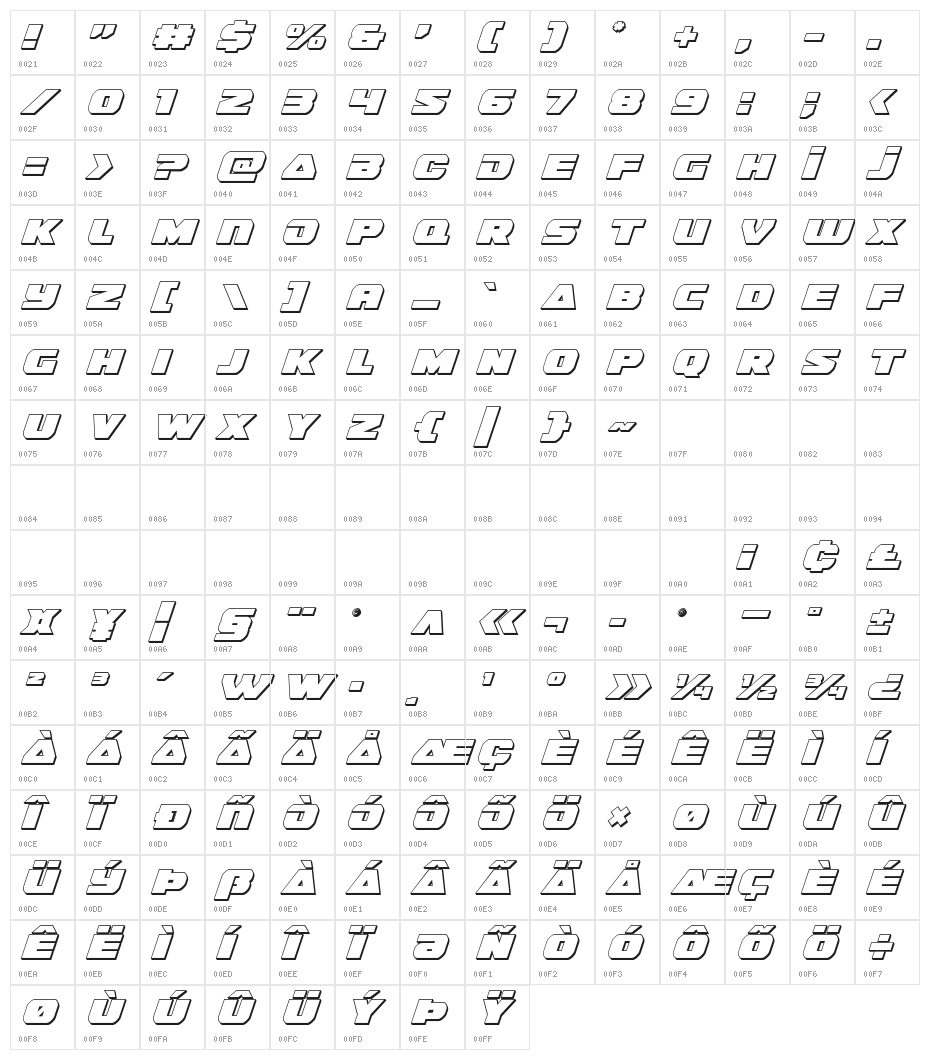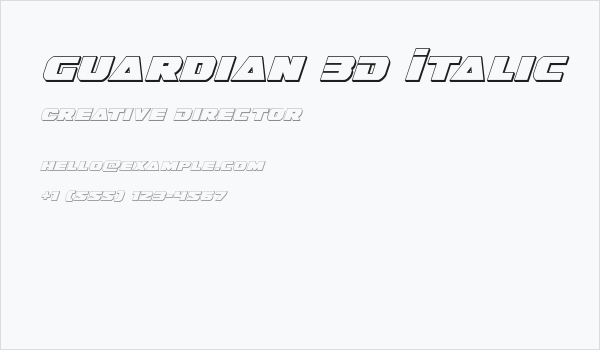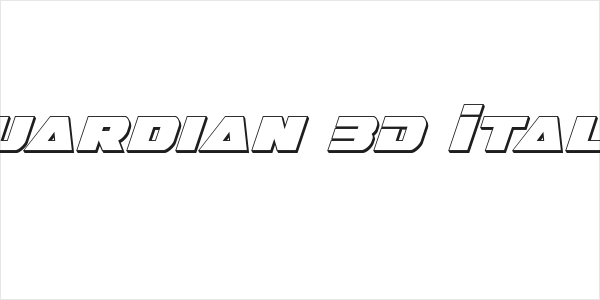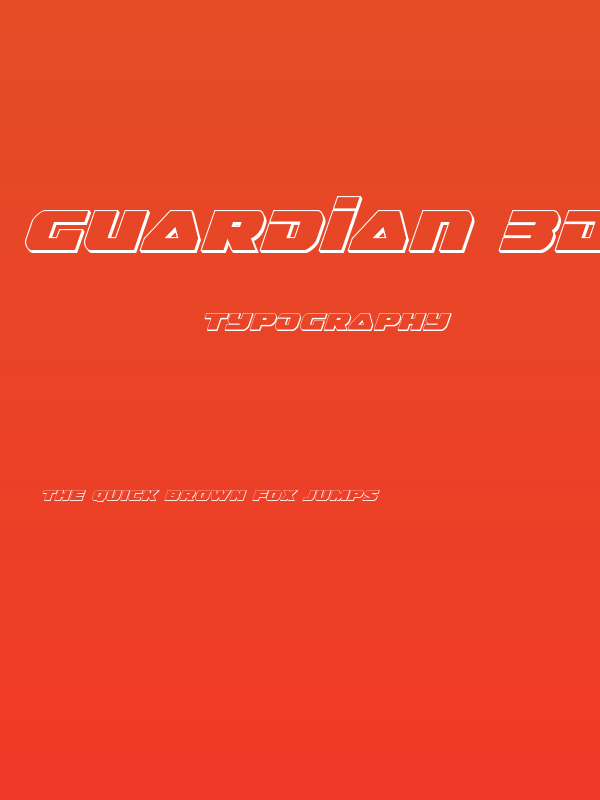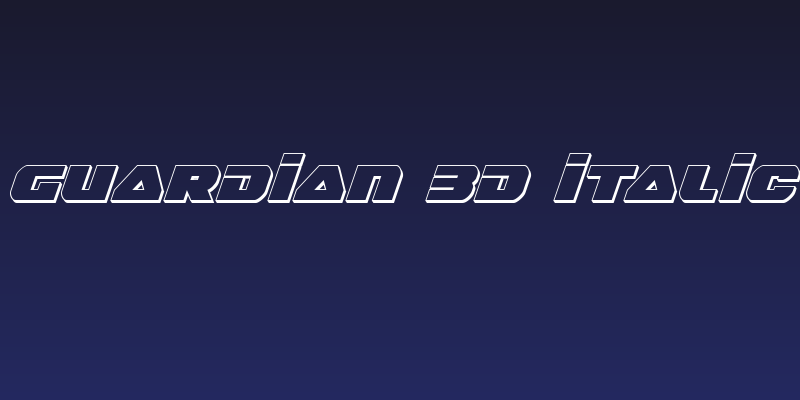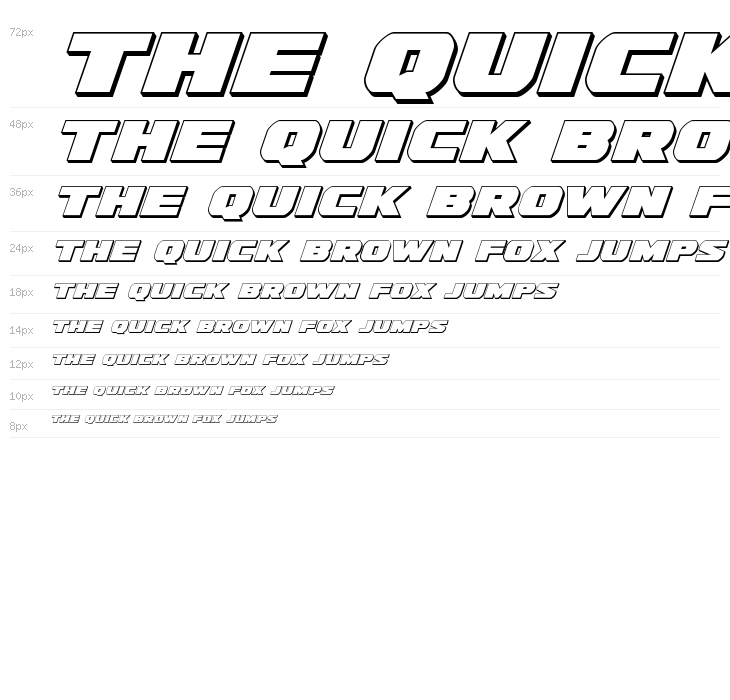
Guardian 3D Italic Font
Guardian 3D Italic Description
This font features a bold, three-dimensional design with an italic slant, creating a dynamic and futuristic appearance. The characters are outlined, giving them a distinct, shadowed effect that enhances their 3D look. The geometric shapes and sharp angles contribute to a modern and edgy style, making it stand out in any design. The uppercase and lowercase letters maintain a consistent style, with numerals and special characters following the same aesthetic. This font is ideal for projects that require a strong visual impact and a contemporary feel.
| Proposed Projects | Ideal for video game titles, sci-fi posters, tech branding, and futuristic designs. |